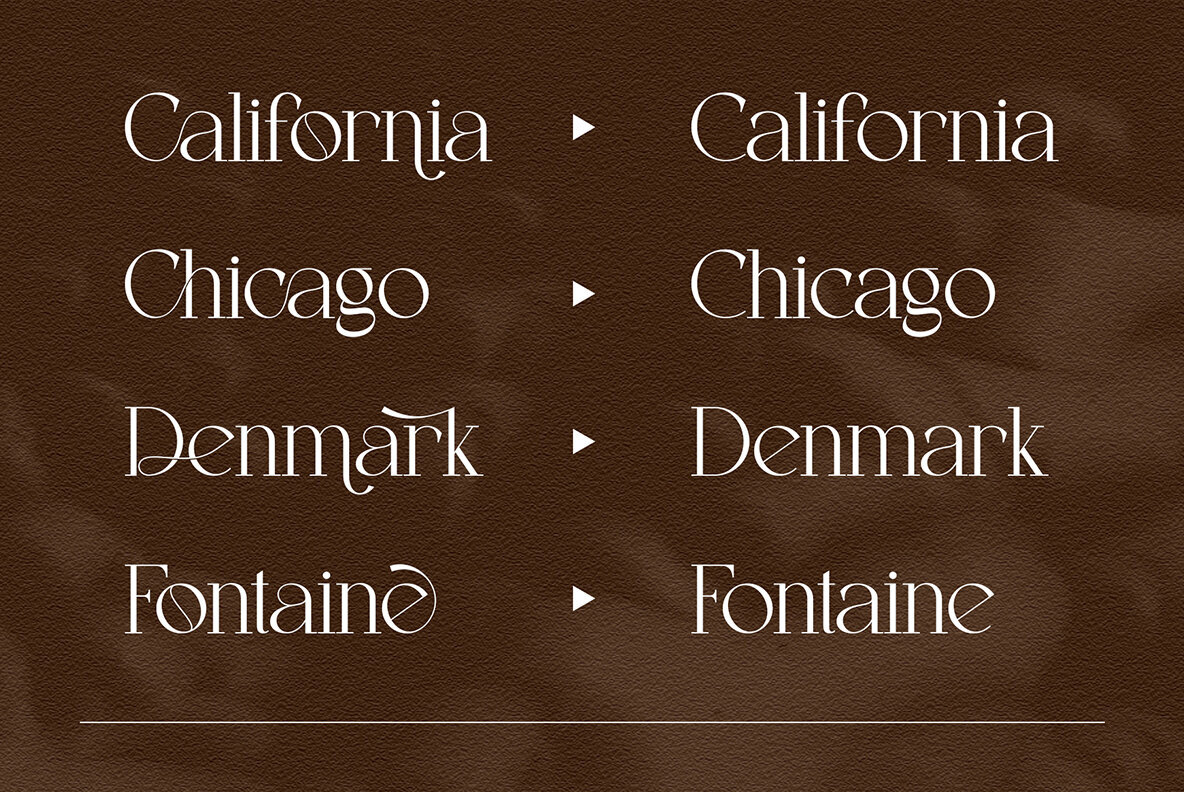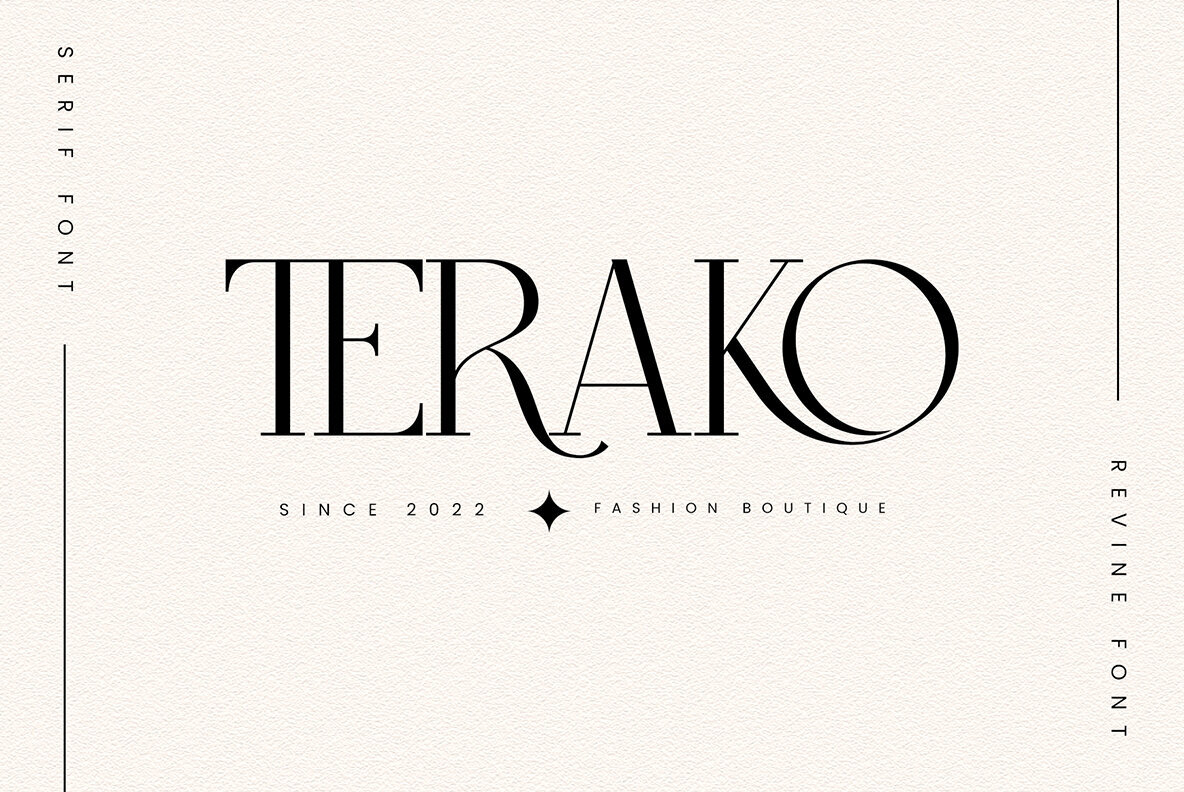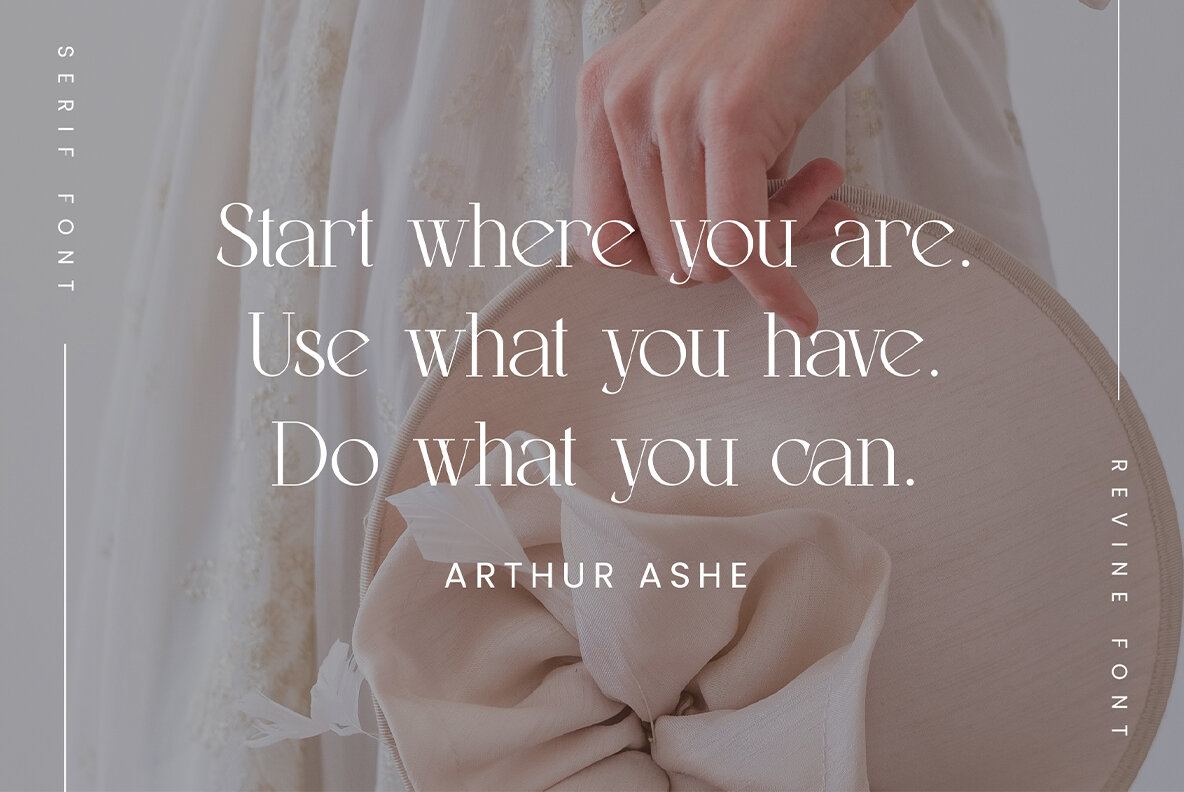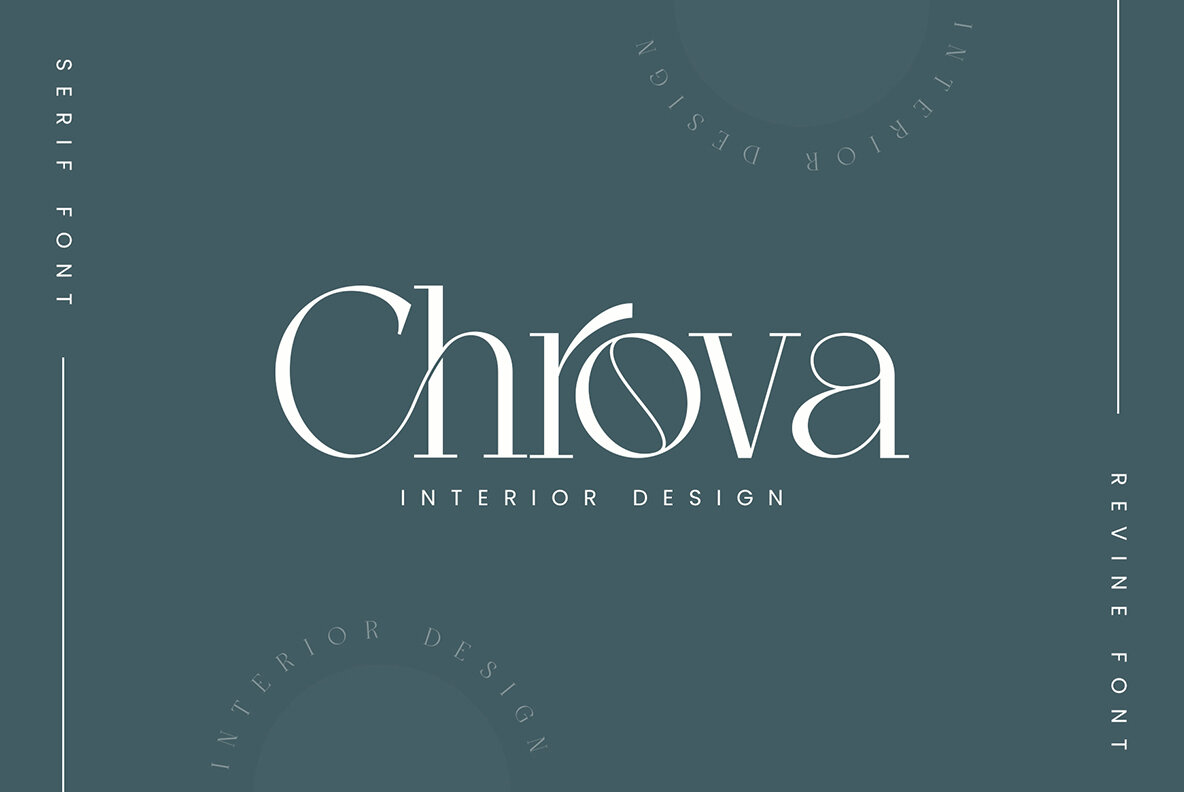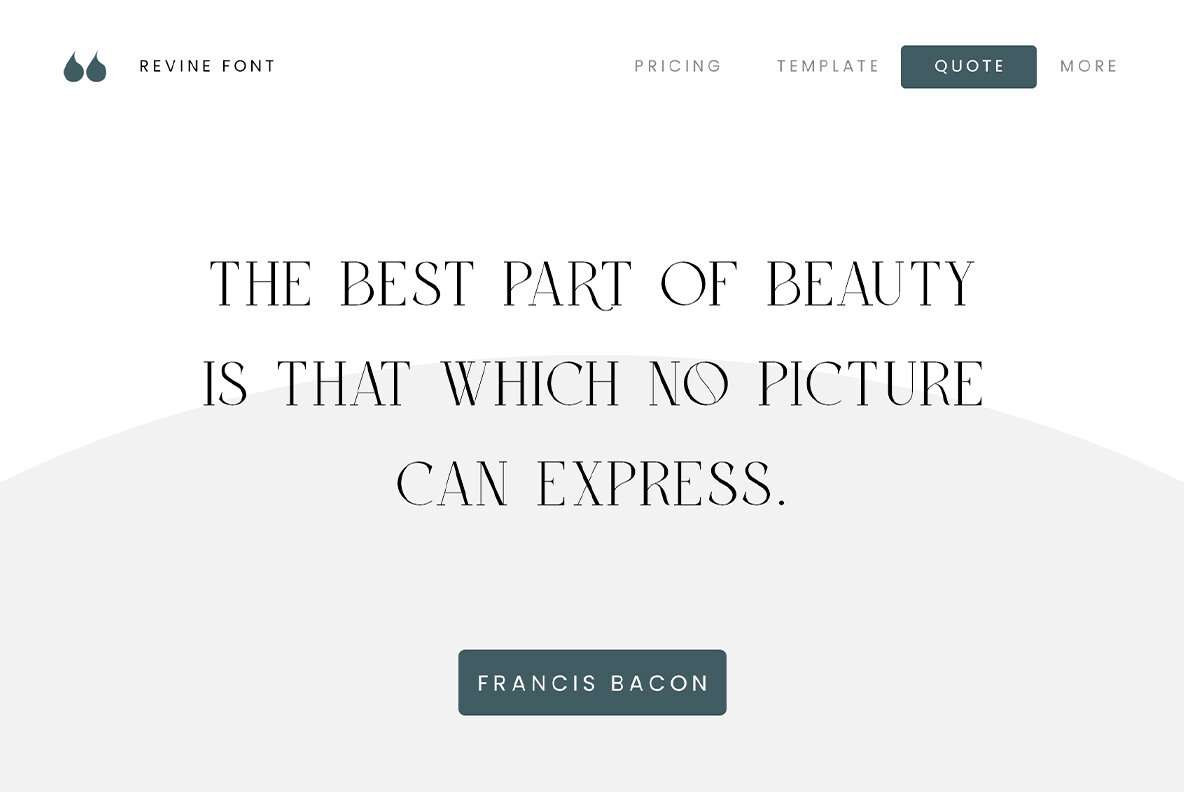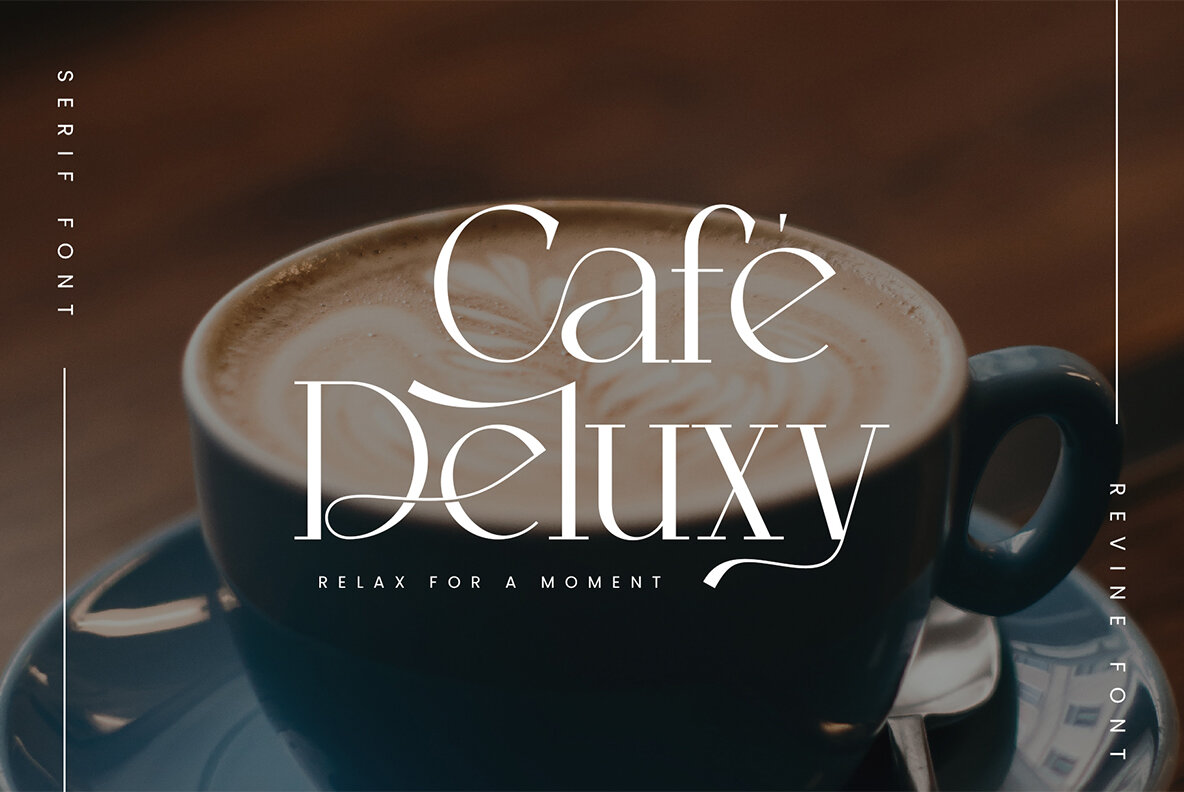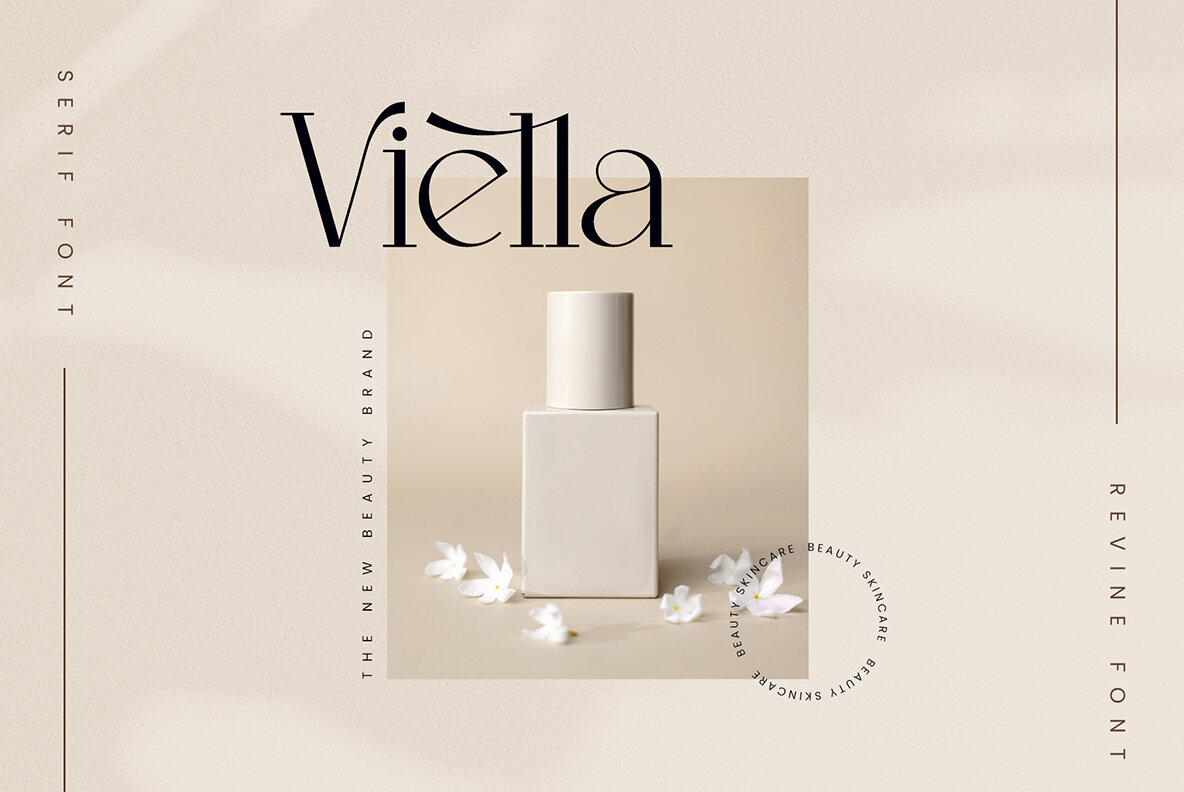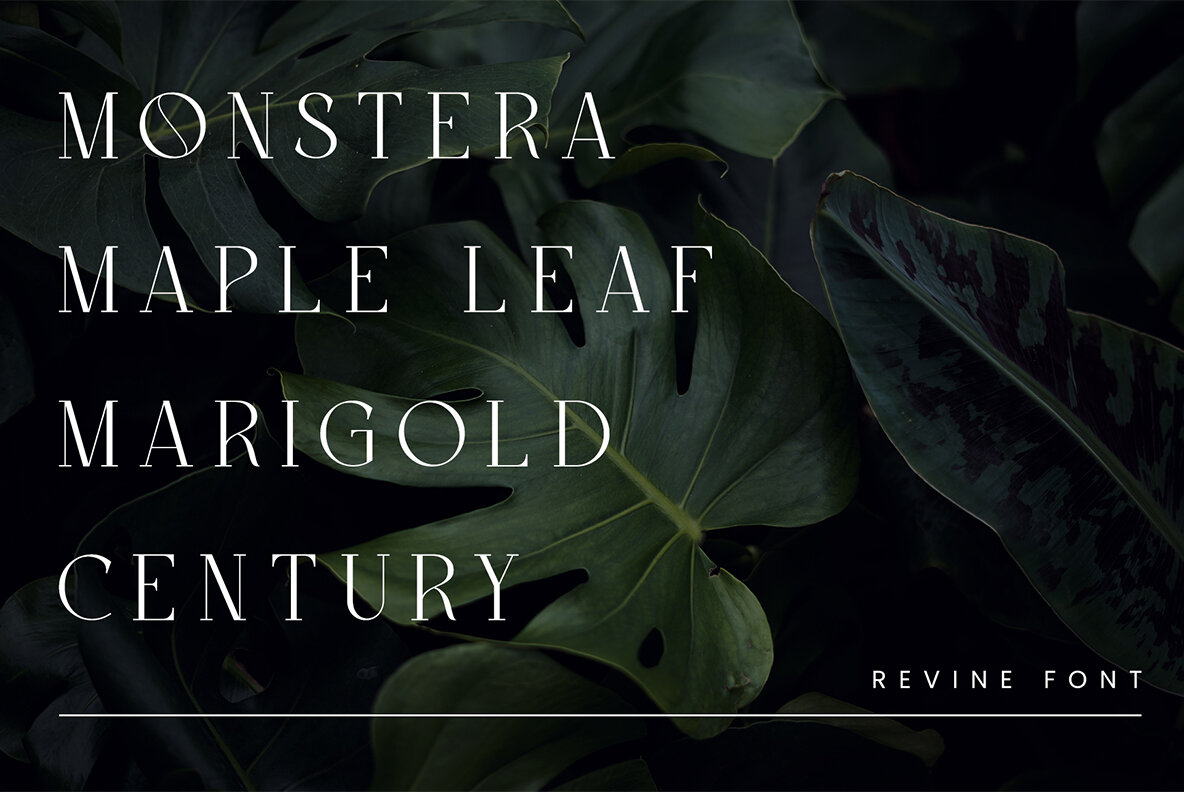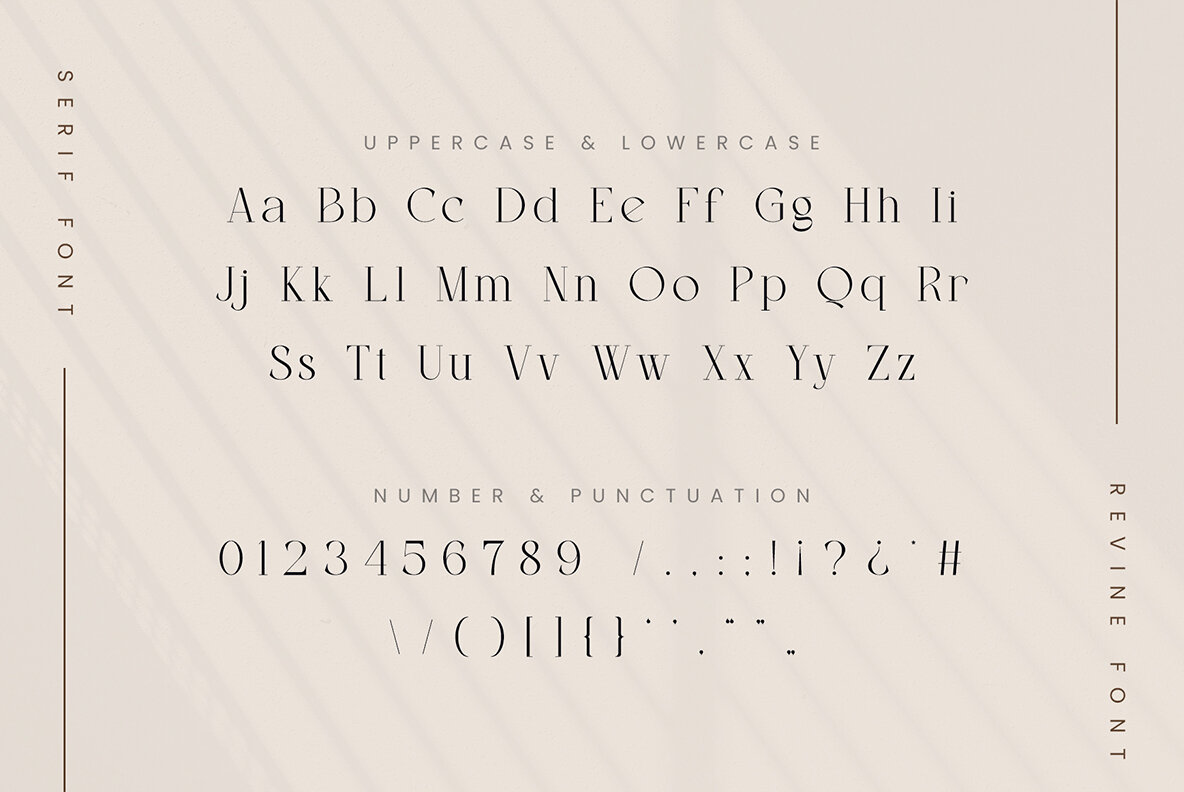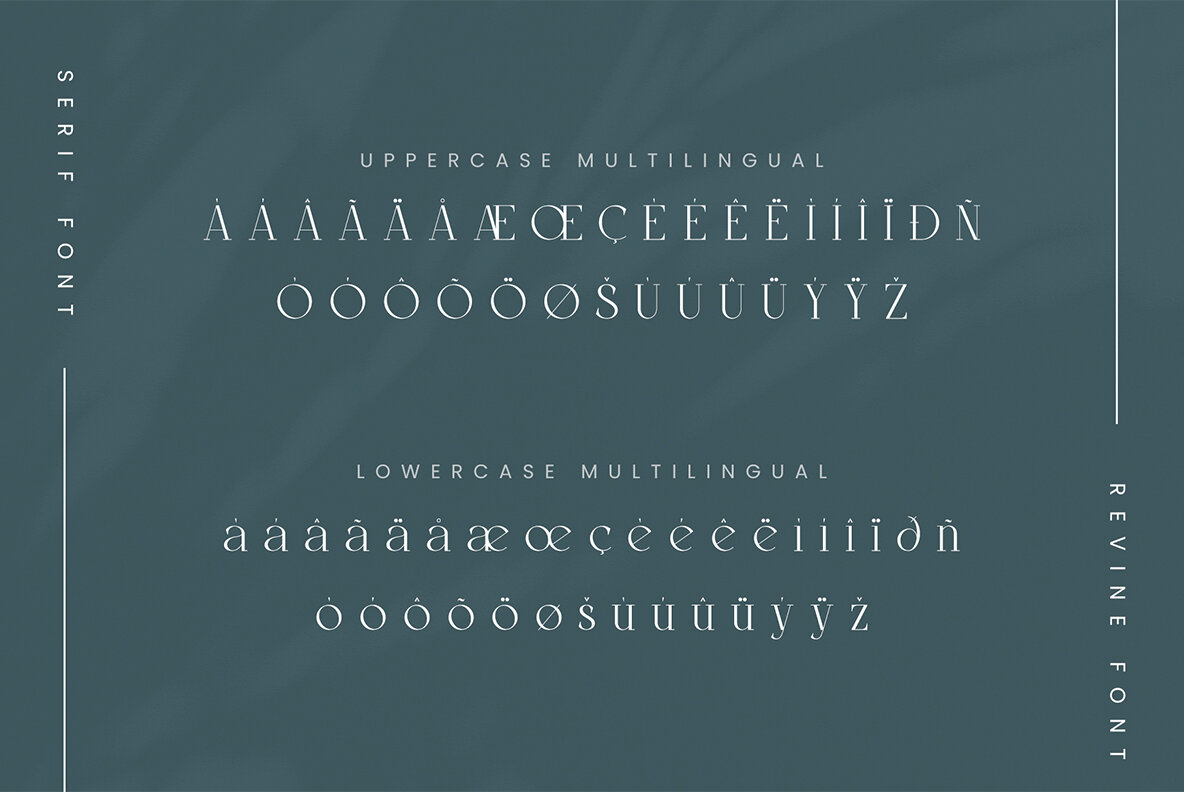
Revine Font
Revine Regular
Revine Serif is a meticulously crafted serif font that blends balance, smoothness, and elegance. Distinguished by its beautiful character, this typeface is ideal for a variety of applications, including invitation cards, company logos, movie titles, business cards, book titles, and brand names. Its sophisticated design and stylish alternations make Revine Serif an exquisite choice for any project.Revine Serif: Balanced Elegance and Style